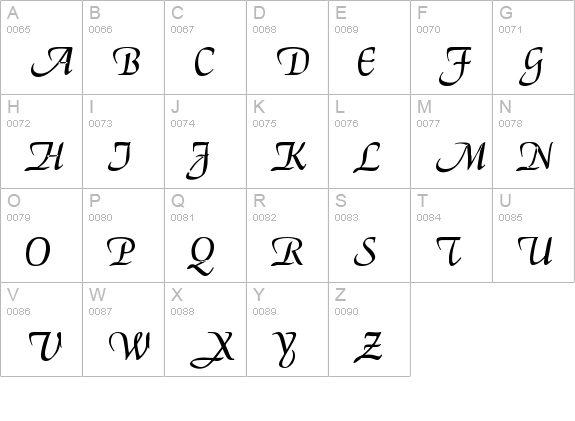
Legarnerd Font Details
Introducing Legarnerd, a captivating and versatile font that brings a touch of modern sophistication to your designs. With its sleek and elegant letterforms, Legarnerd effortlessly combines classic charm with contemporary flair, making it the perfect choice for a wide range of projects. This font exudes a sense of creativity and artistic finesse, making it ideal for branding, logos, headlines, and more. Its clean lines and balanced proportions create a harmonious visual rhythm, ensuring that your message is conveyed with clarity and impact. Legarnerd is not only visually stunning but also incredibly versatile. Its extensive character set includes a variety of ligatures, alternates, and swashes, allowing you to customize and personalize your designs to perfection. Whether you're aiming for a minimalistic and understated look or a bold and expressive statement, this font has got you covered. But what makes Legarnerd truly exceptional is that it is freely available to download at FontsMarket.com. Yes, you read that right – you can get your hands on this remarkable font without spending a penny. This means that you can elevate your designs without breaking the bank, making it an invaluable resource for designers, creatives, and enthusiasts alike. So why wait? Unleash your creativity and take your designs to new heights with Legarnerd. Download it for free at FontsMarket.com and let the beauty and versatility of this font inspire your next project.